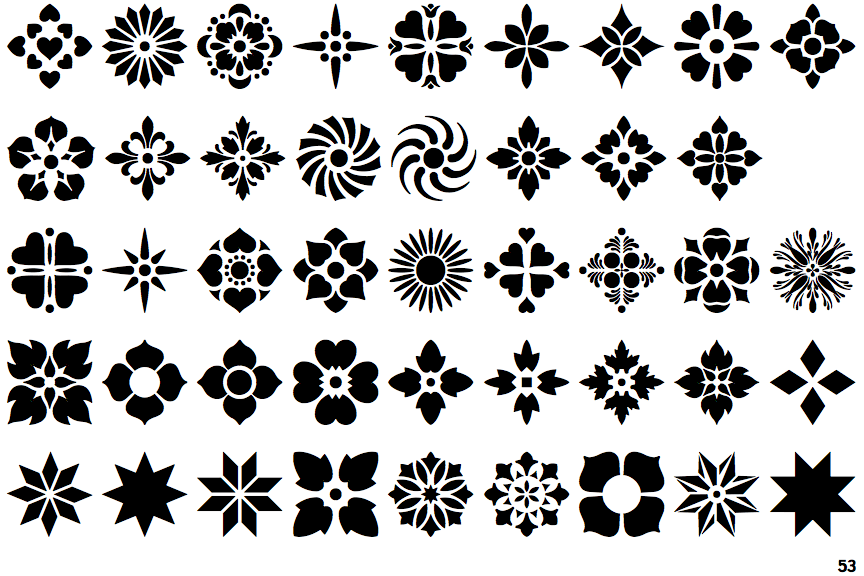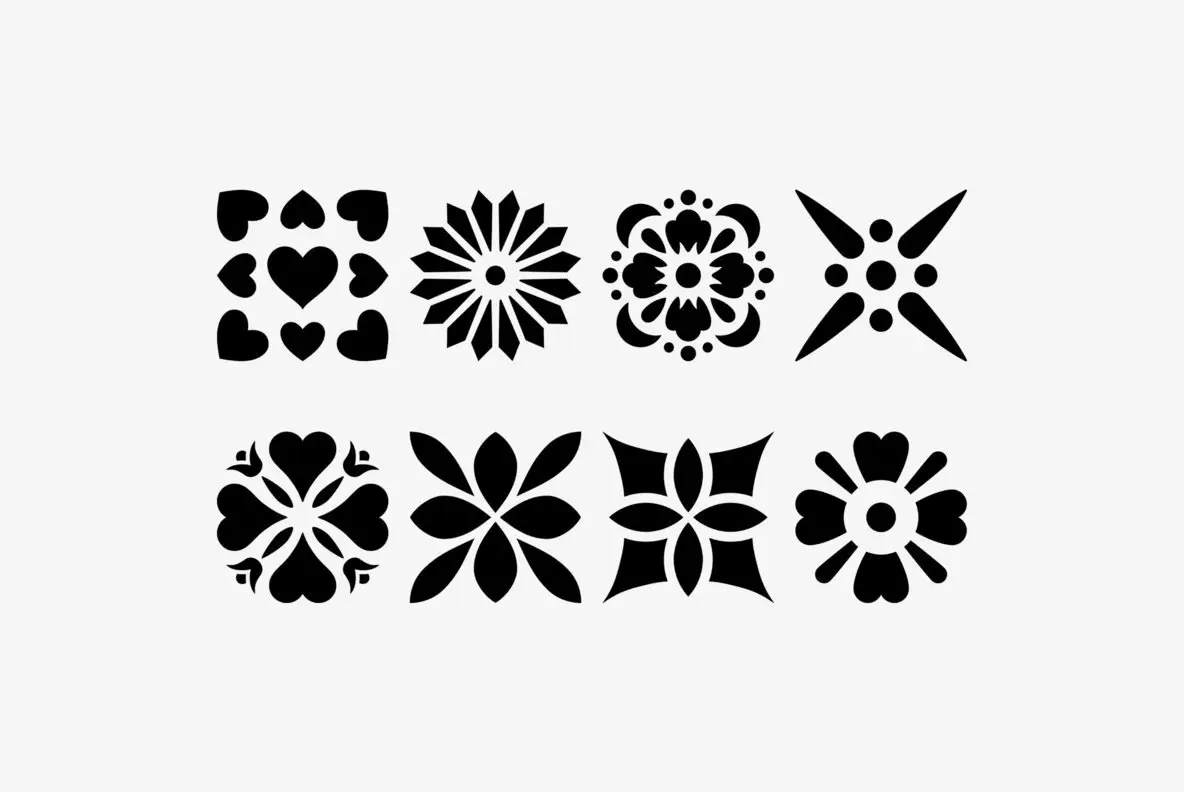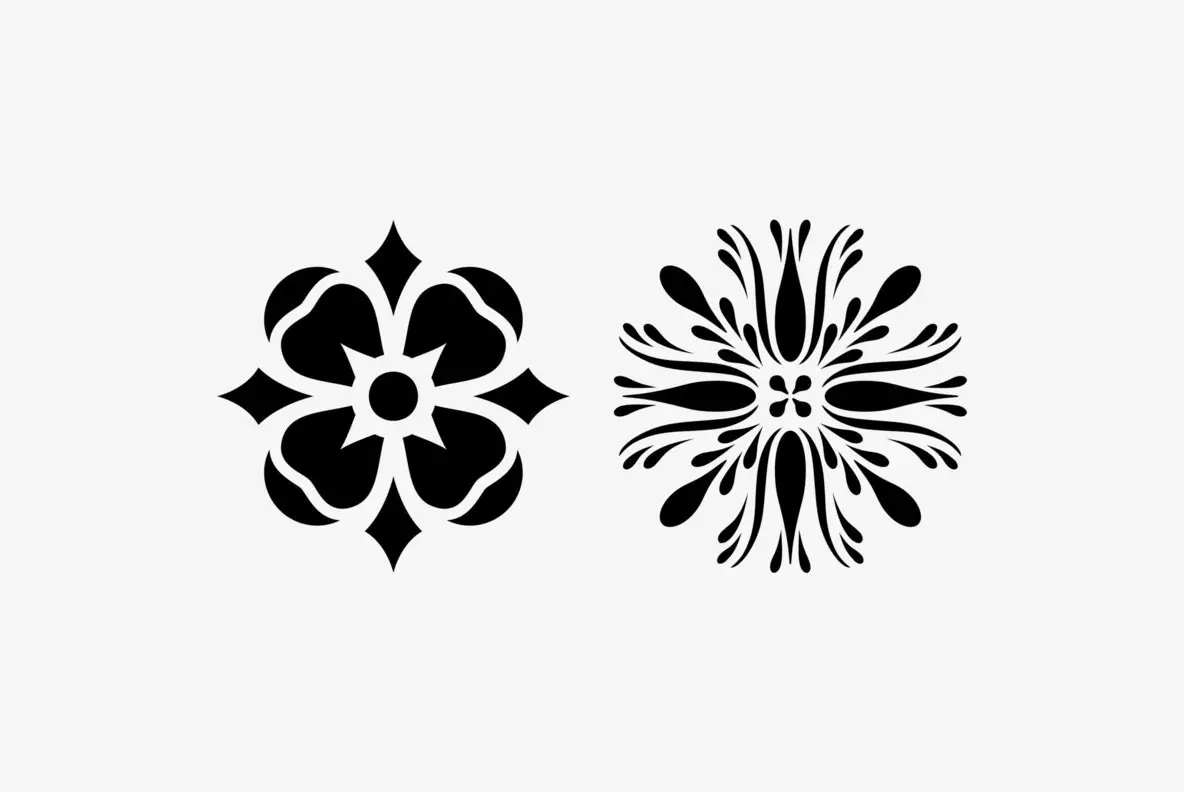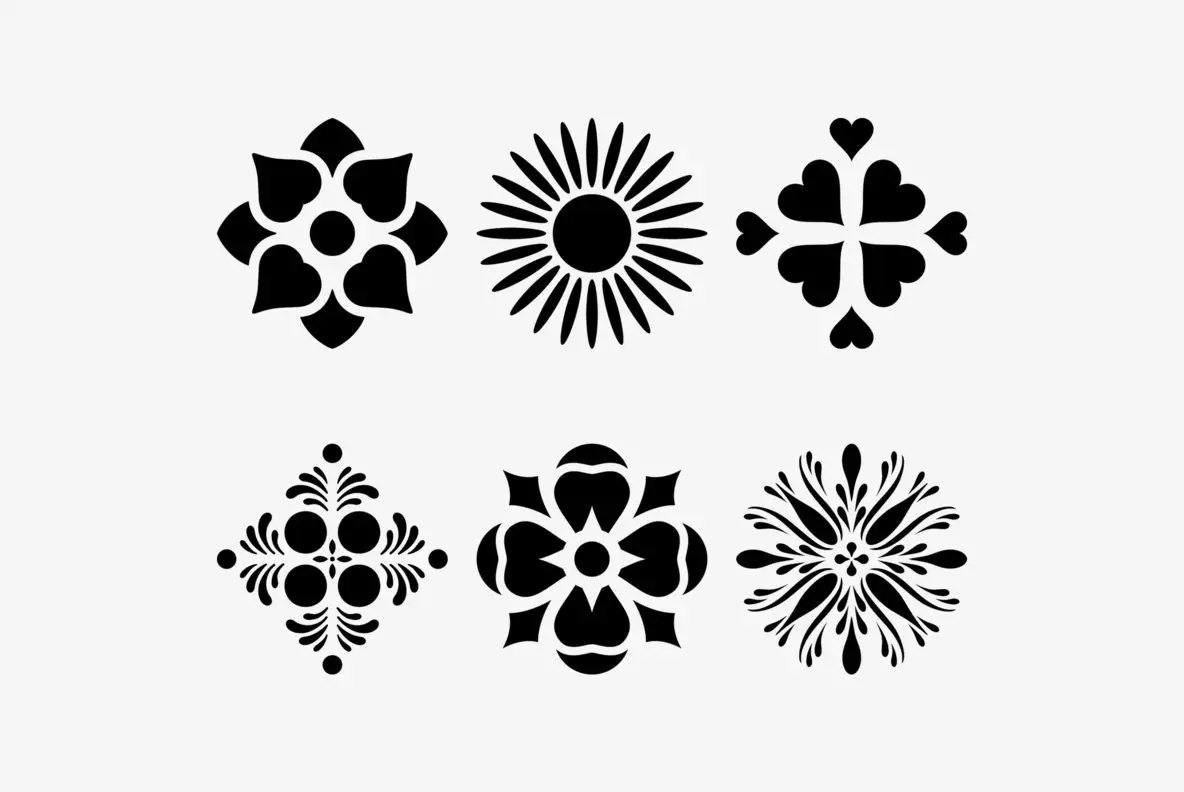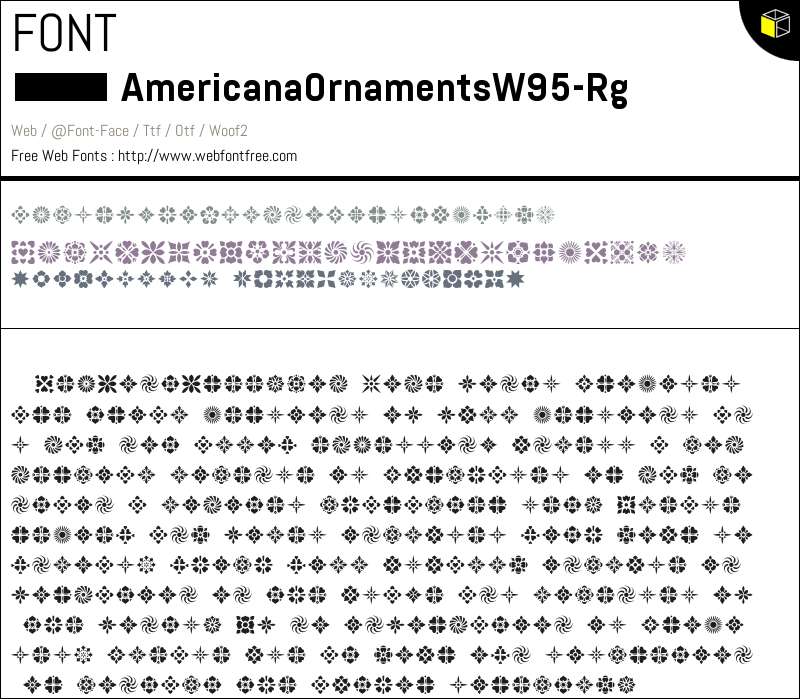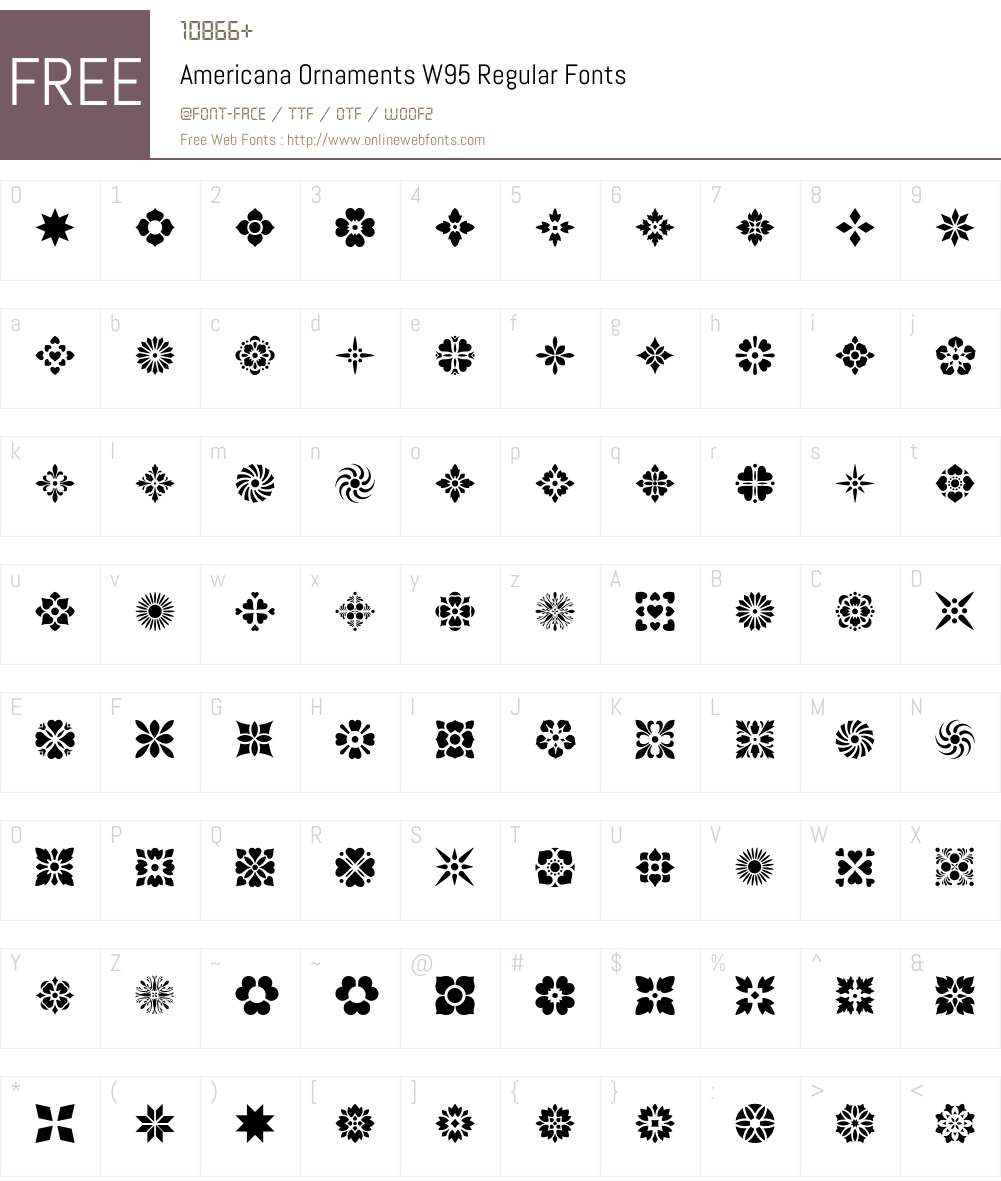
Americana Ornaments Font . There is an assortment of 47 ornaments. For windows in truetype, windows in postscript, mac in truetype, mac in. En savoir plus sur cette famille essai gratuit de 30 jours de. americana ornaments was inspired by early american period designs. old fashioned vector ornaments from golden era studios' americana collection. 2 fonts consisting of the best old fashioned ornaments from golden era studios. There is an assortment of 47 ornaments located under the character set keys. lhf americana ornaments contient 2 styles et des offres familiales. Americana ornaments was inspired by early american period designs. examples and download link for the americana ornaments font designed by gerald gallo in 2006. Each font contains 36 expertly drawn. download americana ornaments font. Each font contains 36 expertly drawn decorations,. download americana ornaments font. americana ornaments was inspired by early american period designs.
americana ornaments was inspired by early american period designs. For windows in truetype, windows in postscript, mac in truetype, mac in. lhf americana ornaments contient 2 styles et des offres familiales. download americana ornaments font. americana ornaments was inspired by early american period designs. download americana ornaments font. Americana ornaments was inspired by early american period designs. examples and download link for the americana ornaments font designed by gerald gallo in 2006. old fashioned vector ornaments from golden era studios' americana collection. Each font contains 36 expertly drawn decorations,.
Americana Ornaments Font examples and download link for the americana ornaments font designed by gerald gallo in 2006. Each font contains 36 expertly drawn decorations,. lhf americana ornaments contient 2 styles et des offres familiales. There is an assortment of 47 ornaments. Americana ornaments was inspired by early american period designs. Each font contains 36 expertly drawn. download americana ornaments font. old fashioned vector ornaments from golden era studios' americana collection. 2 fonts consisting of the best old fashioned ornaments from golden era studios. americana ornaments was inspired by early american period designs. For windows in truetype, windows in postscript, mac in truetype, mac in. americana ornaments was inspired by early american period designs. examples and download link for the americana ornaments font designed by gerald gallo in 2006. There is an assortment of 47 ornaments located under the character set keys. download americana ornaments font. En savoir plus sur cette famille essai gratuit de 30 jours de.
Americana Ornaments Font MasterBundles Americana Ornaments Font Each font contains 36 expertly drawn decorations,. Americana ornaments was inspired by early american period designs. old fashioned vector ornaments from golden era studios' americana collection. There is an assortment of 47 ornaments located under the character set keys. lhf americana ornaments contient 2 styles et des offres familiales. En savoir plus sur cette famille essai gratuit de. Americana Ornaments Font.
Americana Ornaments Font MasterBundles Americana Ornaments Font lhf americana ornaments contient 2 styles et des offres familiales. americana ornaments was inspired by early american period designs. There is an assortment of 47 ornaments. For windows in truetype, windows in postscript, mac in truetype, mac in. americana ornaments was inspired by early american period designs. Americana ornaments was inspired by early american period designs. . Americana Ornaments Font.
Ornaments Americana Ornaments Font americana ornaments was inspired by early american period designs. En savoir plus sur cette famille essai gratuit de 30 jours de. americana ornaments was inspired by early american period designs. Each font contains 36 expertly drawn. examples and download link for the americana ornaments font designed by gerald gallo in 2006. 2 fonts consisting of the. Americana Ornaments Font.
10+ Ornamental Fonts Free OTF, TTF Format Download Americana Ornaments Font Each font contains 36 expertly drawn. lhf americana ornaments contient 2 styles et des offres familiales. download americana ornaments font. Americana ornaments was inspired by early american period designs. 2 fonts consisting of the best old fashioned ornaments from golden era studios. For windows in truetype, windows in postscript, mac in truetype, mac in. En savoir plus. Americana Ornaments Font.
Americana Ornaments Font YouWorkForThem Americana Ornaments Font There is an assortment of 47 ornaments located under the character set keys. old fashioned vector ornaments from golden era studios' americana collection. examples and download link for the americana ornaments font designed by gerald gallo in 2006. lhf americana ornaments contient 2 styles et des offres familiales. There is an assortment of 47 ornaments. americana. Americana Ornaments Font.